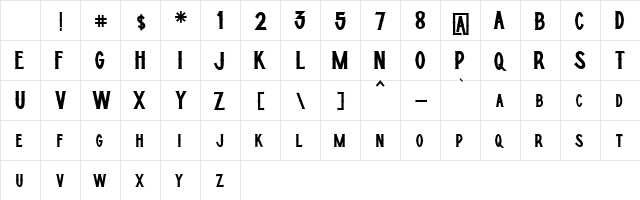
Complete Hypebeast Regular glyph index. Displaying only characters natively supported by Hypebeast Regular font.
Hypebeast is a composed and adaptable typeface that performs quietly and consistently across a wide range of design contexts.
Pro Tip: Use Hypebeast in both headline and body roles to test its range before committing to a single application.